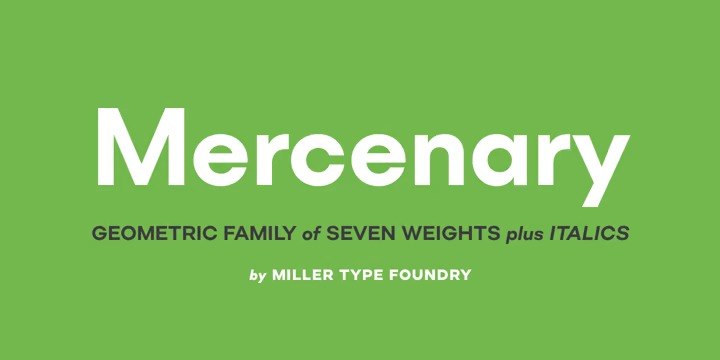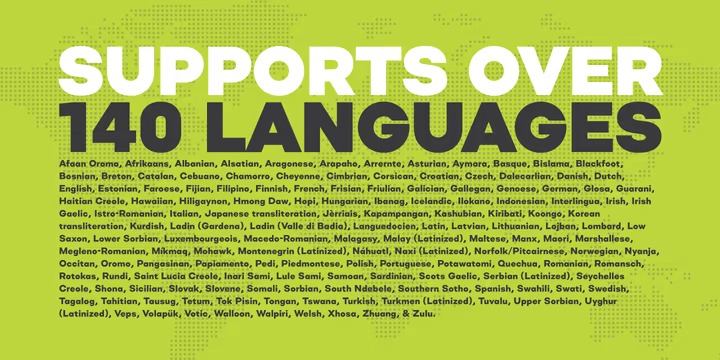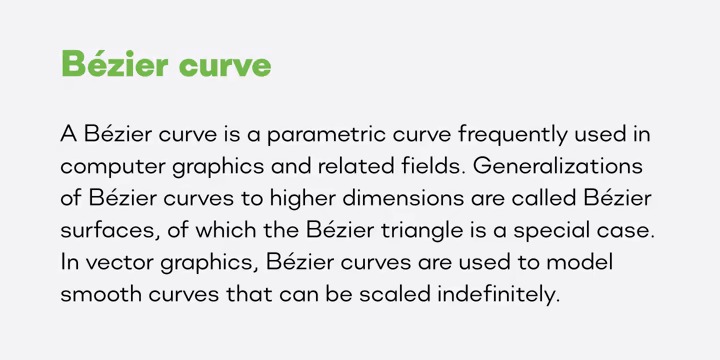
Mercenary Sans Serif Font
It’s a geometric sans serif typeface of the 20st century. This is a font family made up of seven weights, all with matching italics. Designed to be neutral, Mercenary works for almost any project and in conjunction with almost any style. Mercenary looks great big or small, making it a true workhorse typeface.